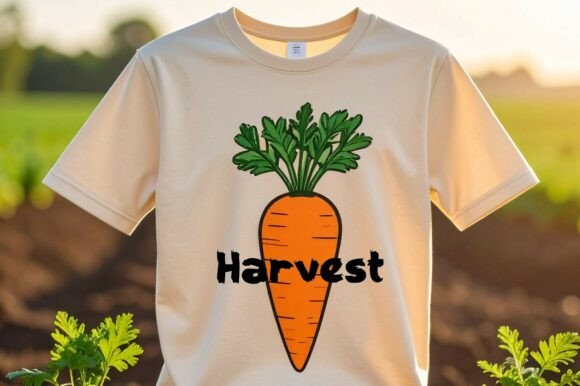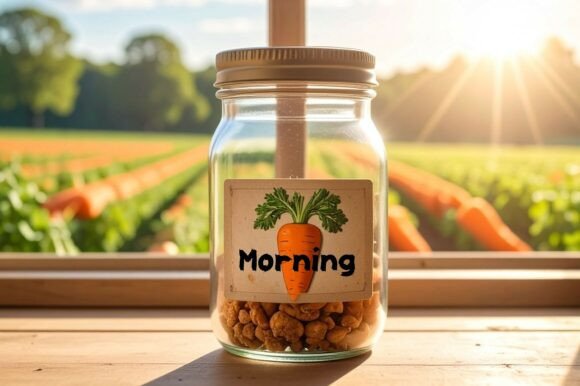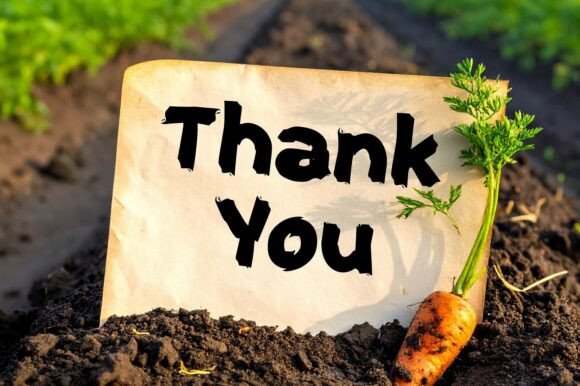
Discover the Charm of Carrot Farm Font: A Delightful Emblem of Sustainable Farming
Indulge in the serene beauty of the countryside with Carrot Farm, a delightful farm that flawlessly embodies the vibrant essence of sustainable farming and hearty produce. This charming font is inspired by the rustic charm of a countryside farm, bringing a sense of freshness and wholesomeness to any design project. In this article, we’ll explore the unique features of Carrot Farm Font, its uses, and why it’s an excellent choice for designers and crafters looking to convey a heartfelt and healthy tale.
The Unique Characteristics of Carrot Farm Font
The robust and rounded characters of Carrot Farm hold an enticing charm, touched with a sprinkle of handcrafted imperfections for a genuine, fresh-from-the-farm feel. The font’s design is reminiscent of handwritten signs found at local farmer’s markets, bringing a sense of authenticity and warmth to any design. The rounded edges and soft curves of the letters evoke a sense of friendliness, making it perfect for designs that aim to convey a sense of approachability and welcoming feel.
Ideal Uses for Carrot Farm Font
Carrot Farm Font is the ideal typeface for all things natural and wholesome. Its uses are diverse and can be applied to various design projects, including:
• Eco-conscious branding: Carrot Farm Font is perfect for brands that prioritize sustainability and environmentally friendly practices.
• Farm-fresh labels: Add a touch of rustic charm to your product labels with Carrot Farm Font, evoking the freshness and quality of your produce.
• Child-friendly food branding: The playful and whimsical nature of Carrot Farm Font makes it an excellent choice for food brands targeting children.
• Vibrant farmer’s market signage: Create eye-catching signs that showcase the freshness and quality of your produce with Carrot Farm Font.
• Healthy recipe showcases: Use Carrot Farm Font to add a touch of warmth and approachability to your recipe designs, highlighting the healthy and wholesome ingredients used.
Key Features of Carrot Farm Font
Carrot Farm Font offers a range of features that make it an excellent choice for designers and crafters:
• Extensive character set: Comprising an extensive set of uppercase and lowercase alphabets and numerals, Carrot Farm provides a versatile range for creative use.
• Compatibility: Compatible with numerous design platforms, Carrot Farm Font can be aptly utilised by graphic designers, small business proprietors, and crafters.
• Striking clarity: The font’s design ensures striking clarity, making it easy to read and understand, even at smaller font sizes.
• Welcoming feel: The welcoming feel of Carrot Farm Font extends its appeal, ensuring its accessibility and relatability to a wide range of audiences.
Tips for Using Carrot Farm Font
To get the most out of Carrot Farm Font, consider the following tips:
• Pair with complementary fonts: Pair Carrot Farm Font with complementary fonts to create visual interest and hierarchy in your designs.
• Experiment with colors: Carrot Farm Font looks great in a range of colors, from earthy tones to bright and bold hues. Experiment with different colors to find the perfect combination for your design.
• Use for headlines and body text: Carrot Farm Font is suitable for both headlines and body text, making it a versatile choice for a range of design projects.
Author wep – Wahyu Eka Prasetya
Carrot Farm Font is a delightful and charming typeface that embodies the vibrant essence of sustainable farming and hearty produce. Its unique characteristics, extensive character set, and compatibility with numerous design platforms make it an excellent choice for designers and crafters looking to convey a heartfelt and healthy tale. Whether you’re working on eco-conscious branding, farm-fresh labels, or child-friendly food branding, Carrot Farm Font is sure to bring a touch of rustic charm and whimsy to your designs.